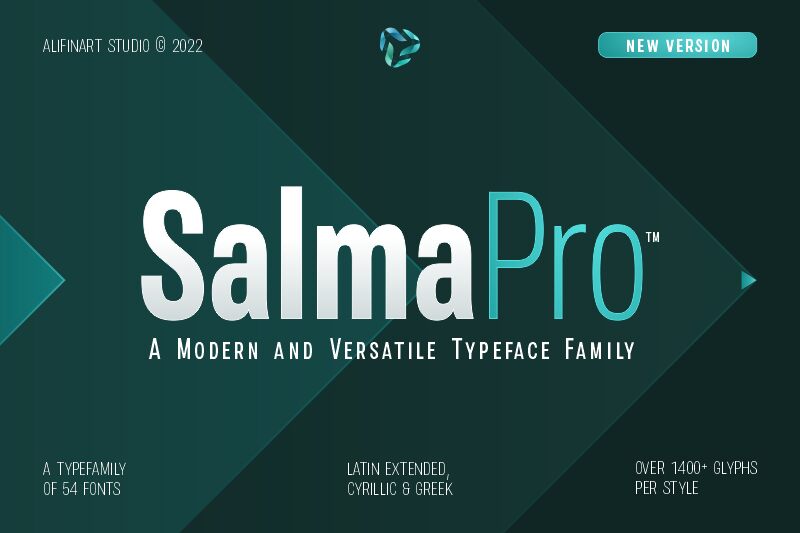
Typeface Story
Salma Pro is a modern sans serif font with a new design and strong character. This font is the successor of the previous version (Salma Alfasans) and is an extended version which has abundant features, good legibility, many styles, and wider language support.
Salma Pro is a multipurpose font that has a unique design, made with great passion and conscientiousness. Because of that, you will see beautiful details in this font.
At large sizes, it looks great, but also has good legibility when used as text at small sizes.
Why Salma Pro?
Salma Pro has 1400+ glyphs and is available in 3 different widths; Normal, Condensed and Narrow. Therefore, the more styles you have, the more versatile your font will be. Besides that, every job will be easier to complete and no more wasting your time.
This font is for professional designers who want a versatile and reliable font for each of their projects. For this reason, it was developed and redesigned; to achieve superior functionality and quality.
The important thing that you should know is that Salma Pro is very compatible when used as a logo and branding projects. Because it has beautiful and authentic details.
Features:
- Small capital
- Tabular and proportional lining figures
- Tabular and proportional oldstyle figures
- Scientific inferior and superior
- Numerator, denominator, and fraction
- Circled and squared numbers
- Standard and discretionary ligatures
- Stylistic and contextual alternates
- Arrows, triangle, square and circle symbol
- Many more.
INTRODUCTION
Introducing Salma Pro, a modern and sleek sans-serif font that boasts a new design and a strong character. As the successor of the previous version (Salma Alfasans), Salma Pro is an extended version that offers an abundance of features, good legibility, and a wide range of styles, making it perfect for any project.
Crafted with great passion and conscientiousness, Salma Pros unique design is a work of art. You will see beautiful details in every letter, making it perfect for branding, logos, and other design projects. Whether youre using it for headlines or body text, Salma Pros good legibility ensures that it looks great at any size.
Why you need Salma Pro in your font collection:
-> Versatility:
With 1400+ glyphs and three different widths to choose from, Salma Pro offers a wide range of styles and features, making it the perfect choice for any project.
-> Reliability:
This font is designed specifically for professional designers and offers superior functionality and quality. You can trust Salma Pro to deliver consistent and high-quality results.
-> Unique Design:
Salma Pro has a unique and authentic design that will make your work stand out. Its perfect for branding, logos, and other design projects.
-> Good legibility:
The font is designed to be highly legible, both at large and small sizes, making it a great choice for both headlines and body text.
-> Language support:
Salma Pro supports Latin Extended, Cyrillic, and Greek languages, making it a great choice for projects with a global audience.
-> Multipurpose:
It can be used for various purposes such as branding project, logo or logotype, promotion, e-pub, website, mobile app, and many more.
-> Time-saving:
With its abundance of features and styles, Salma Pro will save you time and make your job easier.
-> Compatibility:
Salma Pro is very compatible when used as a logo and branding projects. Because it has beautiful and authentic details.
-> Passion and conscientiousness:
Salma Pro is created with great passion and conscientiousness, giving you the best design result.
In conclusion, Salma Pro is a must-have font for professional designers. Its versatility, reliability, unique design, and wide range of features make it an essential tool for any designer.
FEATURES
- Small capitals
- Tabular and proportional lining figures
- Tabular and proportional oldstyle figures
- Scientific inferior and superior characters
- Numerator, denominator, and fraction characters
- Circled and squared numbers
Suggested Uses: Salma Pro is ideal for branding projects, logos and logotypes, promotions, e-books, websites, mobile applications, and more. This versatile font can be used in a wide range of projects to elevate your designs and make your work stand out.
CONCLUSION
Salma Pro is great and powerful font family, that's why you should have it and use it anytime, anywhere.